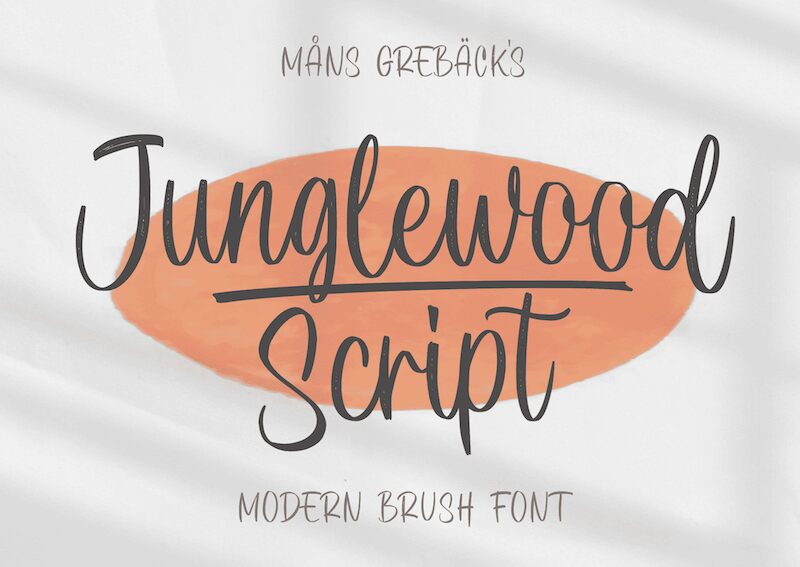
Junglewood Script PERSONAL Regular
Junglewood Script, a creation by Mans Greback, is a masterpiece of handwritten artistry. The font dances with a natural fluidity, capturing the untamed spirit of a handwritten note. Each stroke bears the hallmark of careful craft, imbued with an organic elegance that seems to leap off the page. The letters intertwine with each other in a graceful ballet, suggesting an intimate connection between the words they form.
The playful yet sophisticated charm of Junglewood Script makes it ideal for branding projects that require a personal touch or for invitations that seek to convey warmth and authenticity. Its use extends effortlessly to creative advertising, editorial designs, and any application where the human element is celebrated. This font's allure lies in its ability to transform simple text into something that feels alive and engaging.
Use underscores _ anywhere in a word to make underlines.
Example: Tho_rns and Mea__dows